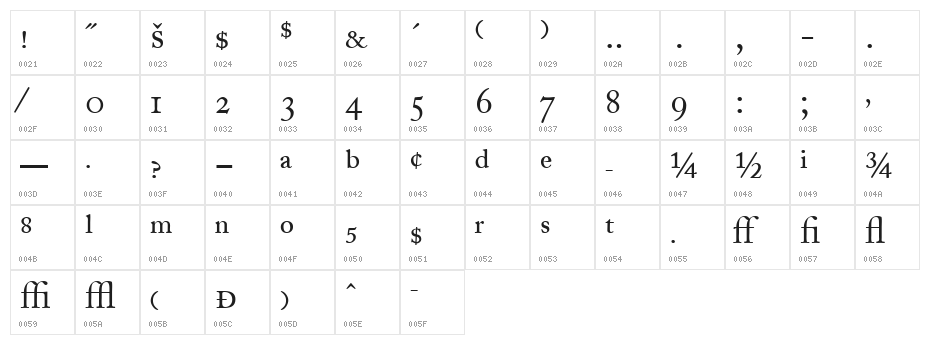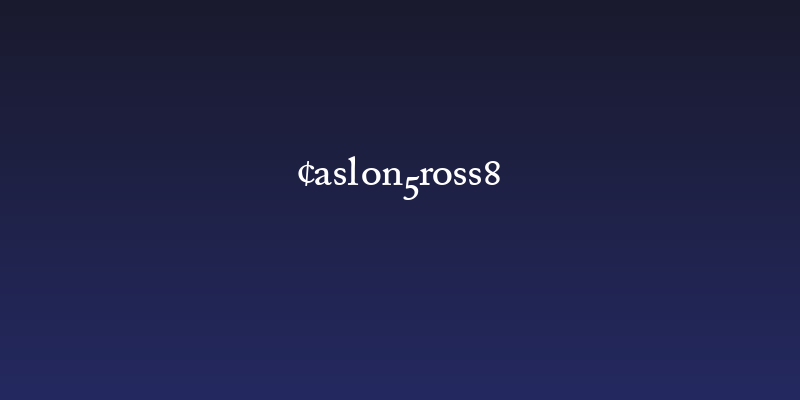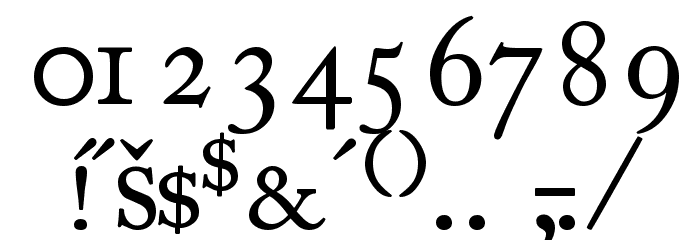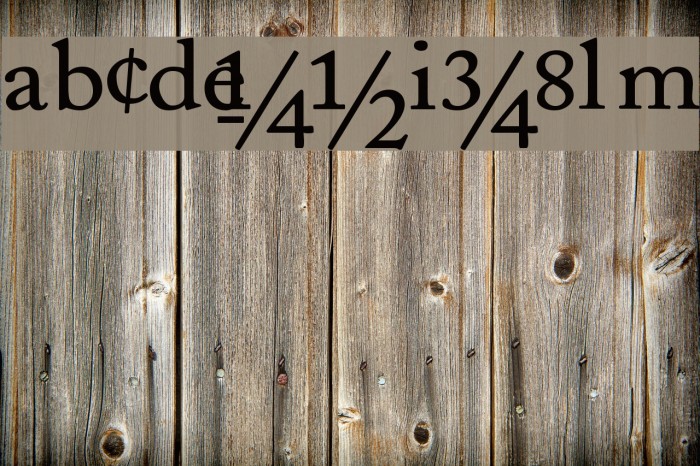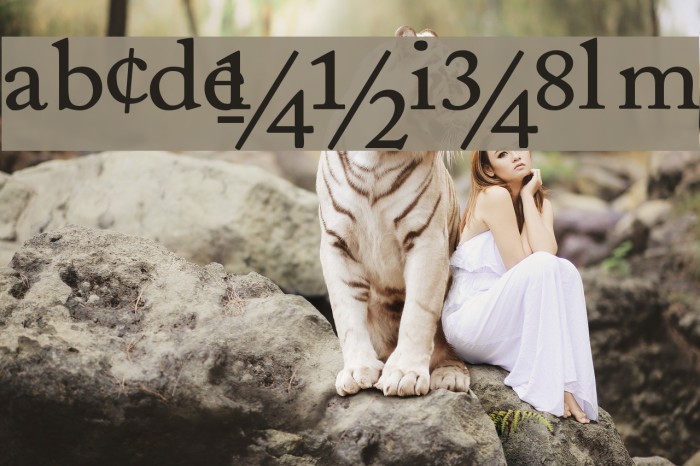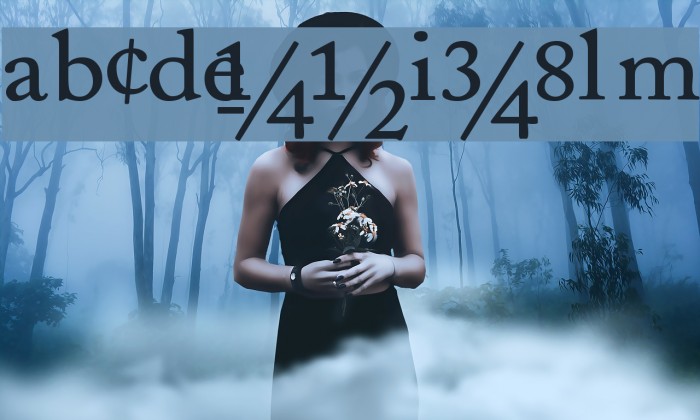
CaslonProSSK Font
CaslonProSSK Description
This font exhibits a classic serif style with elegant and refined letterforms. The characters feature distinct serifs that add a touch of sophistication and tradition. The uppercase letters are bold and commanding, while the lowercase letters maintain a balanced and harmonious appearance. The numerals are clear and easily distinguishable, with a traditional design that complements the overall aesthetic. Special characters are well-integrated, maintaining the font's cohesive look. The font's design is versatile, suitable for both formal and creative applications, making it a timeless choice for various projects.
| Overall Style | Classic |
| Use Case | Headlines, Body text, Logos |
| Proposed Projects | Ideal for book typesetting, formal invitations, branding, editorial design, and any project requiring a classic touch. |